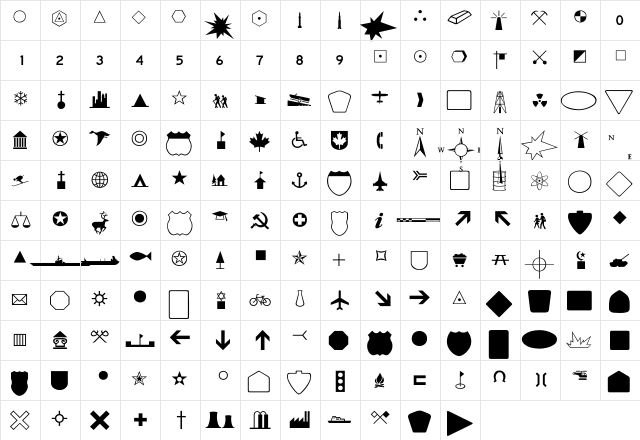
Dipsomania-Normal Regular
Design Context for Dipsomania-Normal Typeface
Dipsomania-Normal is a composed and adaptable typeface that performs quietly and consistently across a wide range of design contexts.